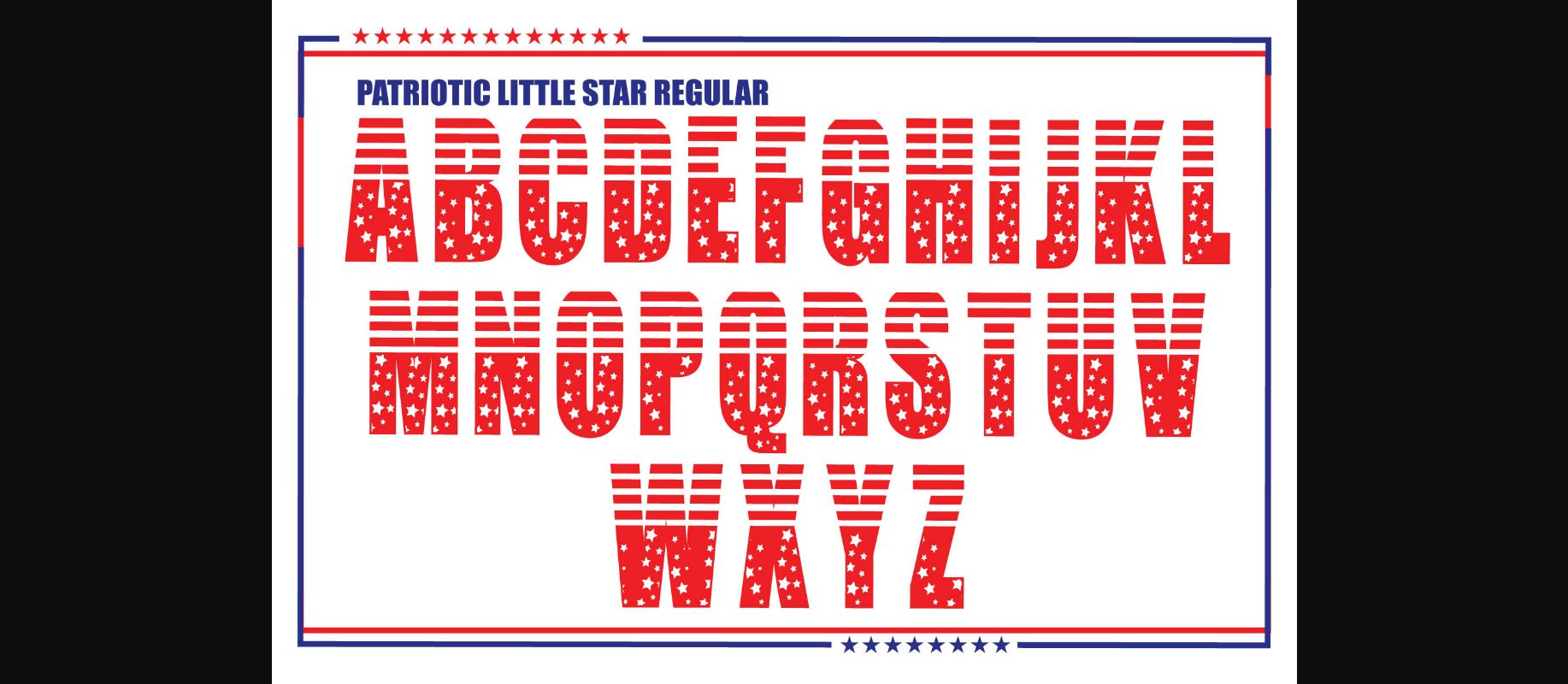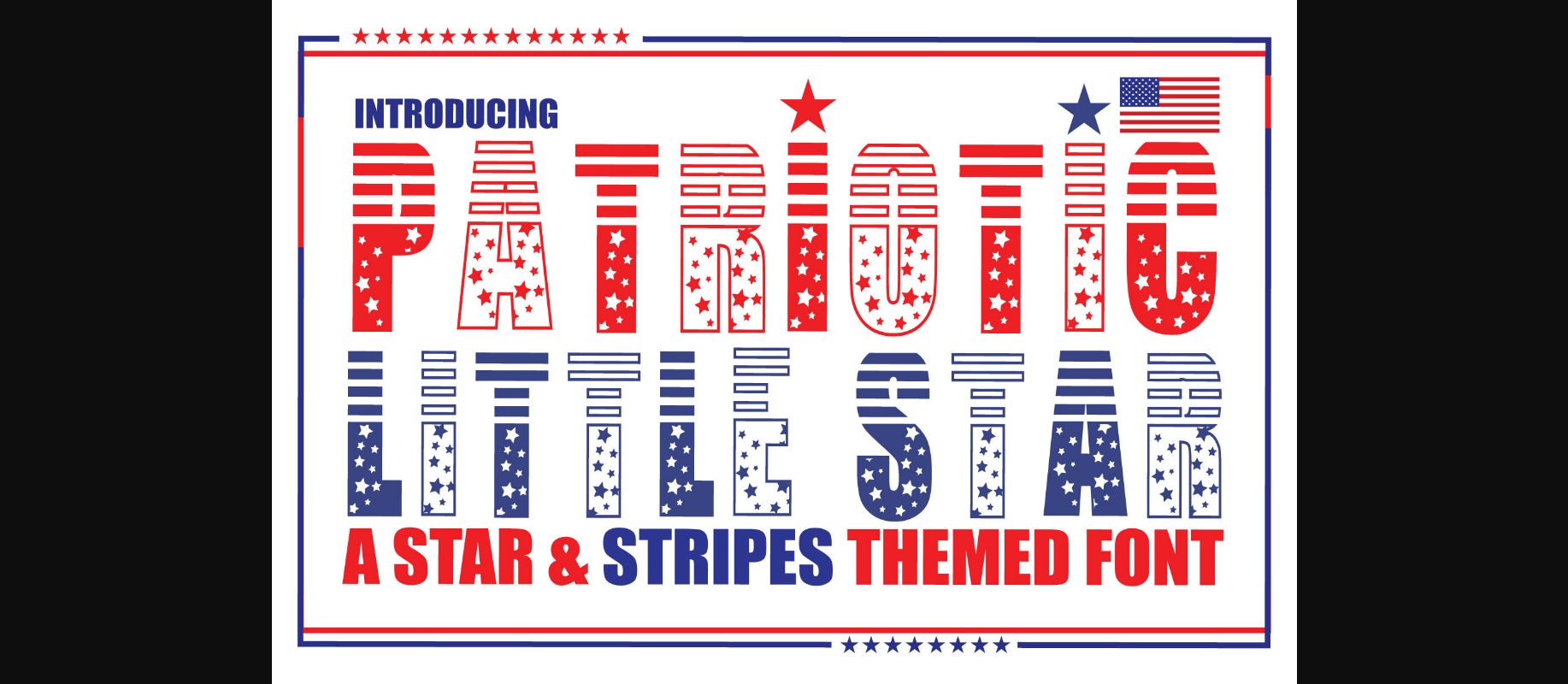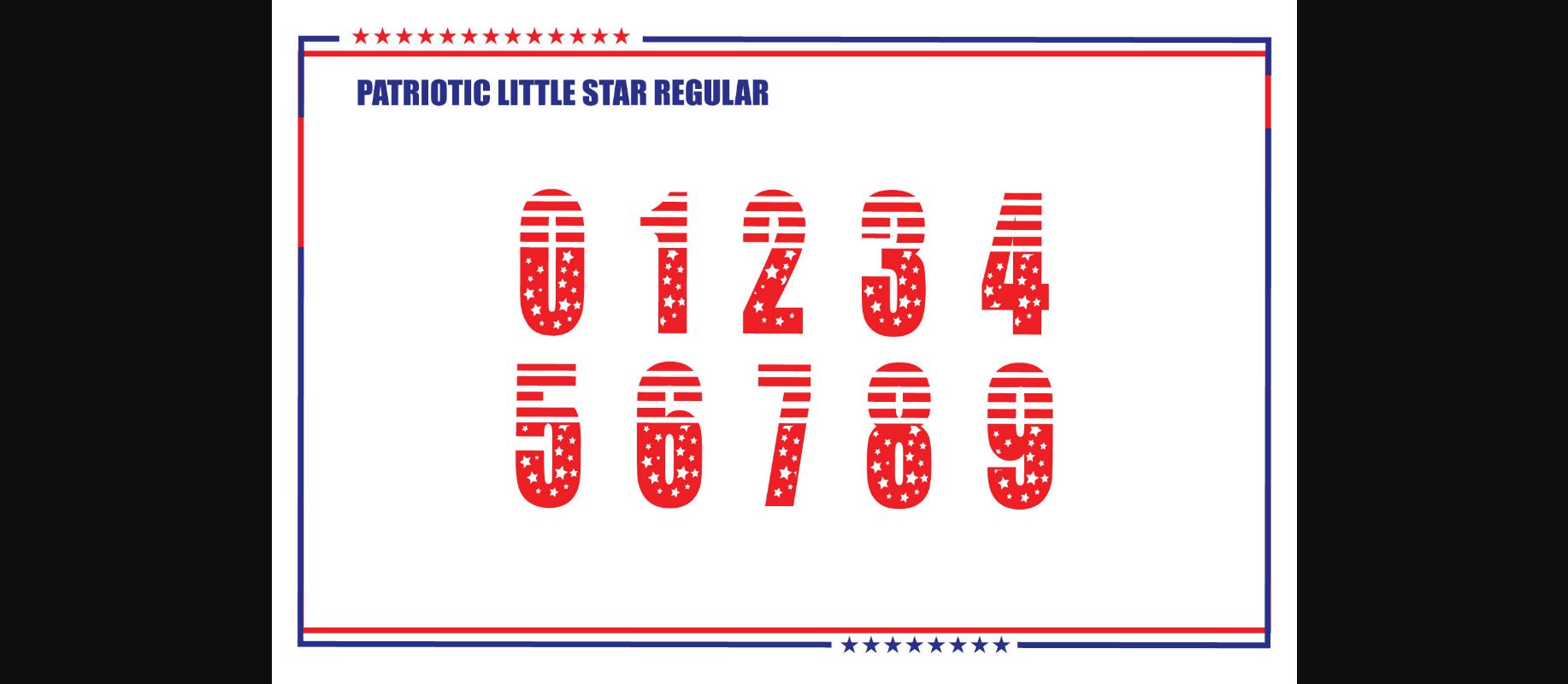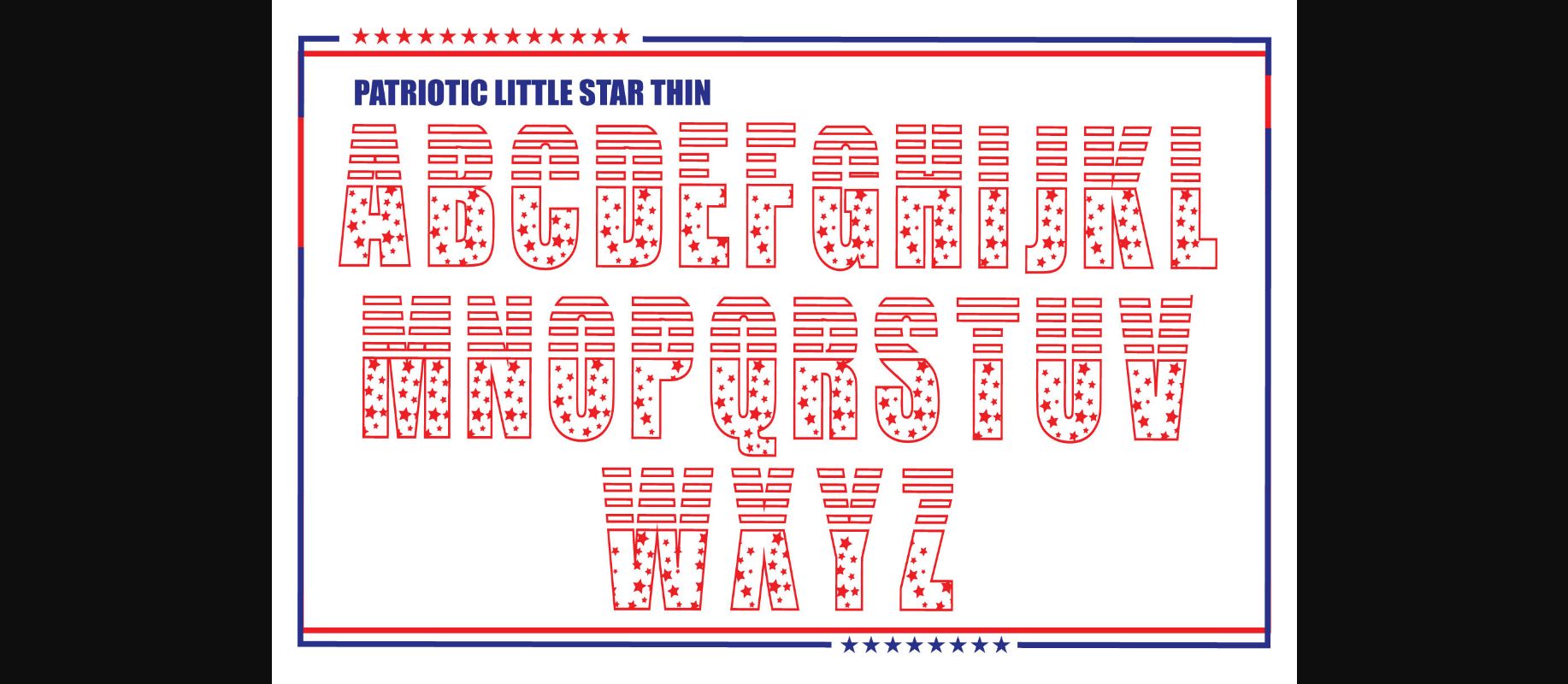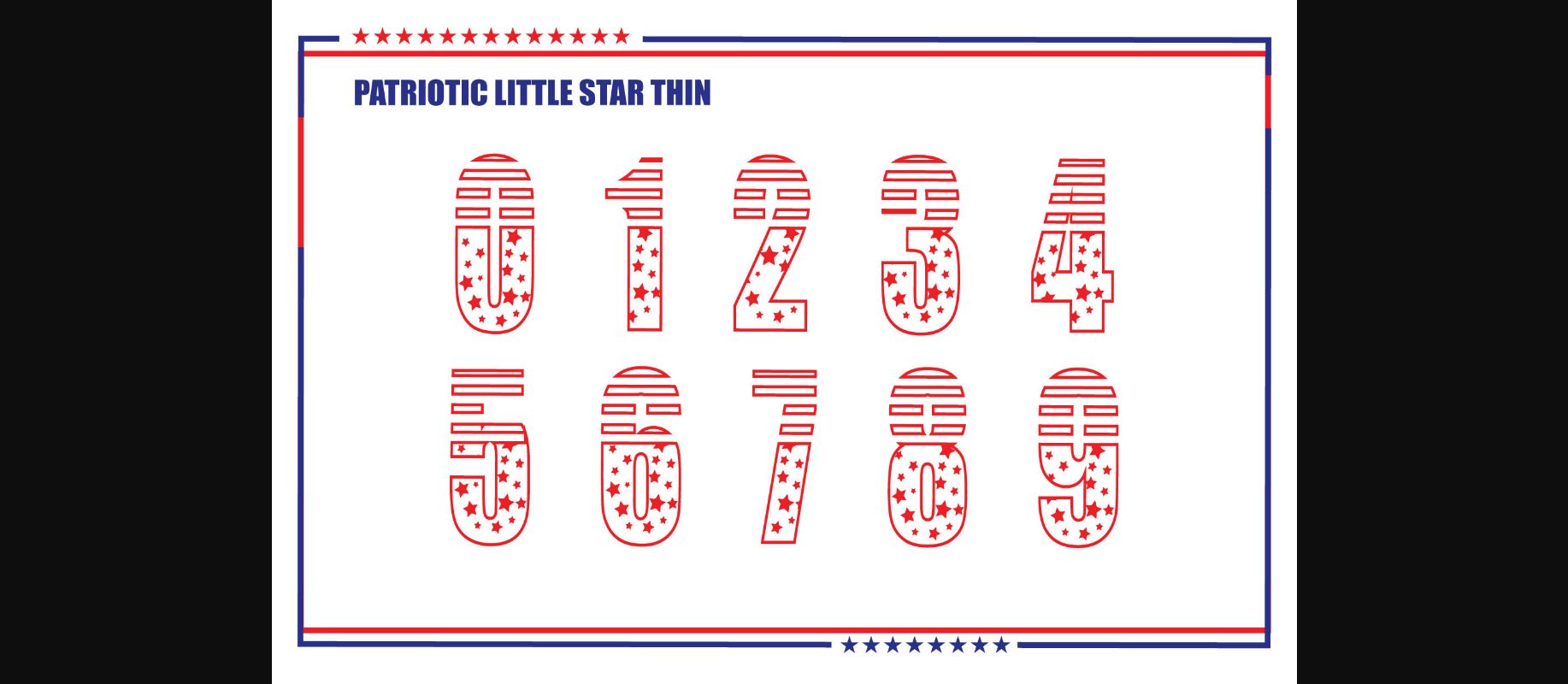
Patriotic Little Star Font
About Patriotic Little Star Font
Patriotic Little Star is a bold, incredibly cool, and festive decorative font. It can be used for various design ideas related to speed, sports, or festivities. Have fun with this beautiful font and explore its endless variations.